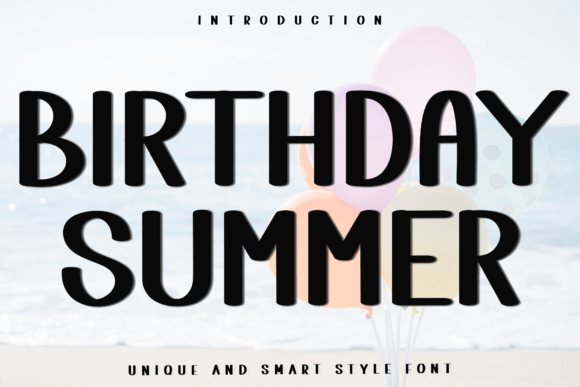
The Birth of a Beautiful Font: Celebrating Birthday Summer
I’ll never forget the summer I was working on a project for a client’s birthday party invitation. I had a clear vision of what I wanted to create, but somehow, the fonts I was using just didn’t feel right. They were either too generic or too over-the-top. That’s when I stumbled upon the Birthday Summer font, and it instantly elevated my design game! ✨
A Beautiful and Eye-Catching Font
The Birthday Summer font is a stunning addition to any design project. Its soft, unique touch and distinctive strokes give it a special character that makes it both meaningful and versatile. Whether you’re working on a design project, craft, or other creative work, this font is perfect for adding a personal touch. With its various characters, you can experiment with different styles and create something truly unique.
• ✨ The font’s soft and unique touch adds a personal touch to any design project
• ✅ The distinctive strokes give it a special character that makes it stand out
• 🎉 The font is versatile and can be used for a wide range of creative works
While the Birthday Summer font is amazing, there are a few things to keep in mind 🤔:
• ⚠️ Some characters may not work well in smaller font sizes, so be sure to test it out before finalizing your design
• ⚠️ The font may not be suitable for very formal or traditional designs, as it has a more playful feel
The Birthday Summer font was inspired by the carefree spirit of summer. Imagine a warm, sunny day, filled with laughter and adventure 🌞. The designer wanted to capture that feeling in a font that would be perfect for birthday parties, summer gatherings, and other joyful celebrations.
Q: What type of designs is Birthday Summer best suited for?
A: Birthday Summer is perfect for creative projects, crafts, and design works that require a personal touch. It’s ideal for birthday parties, summer gatherings, and other joyful celebrations.